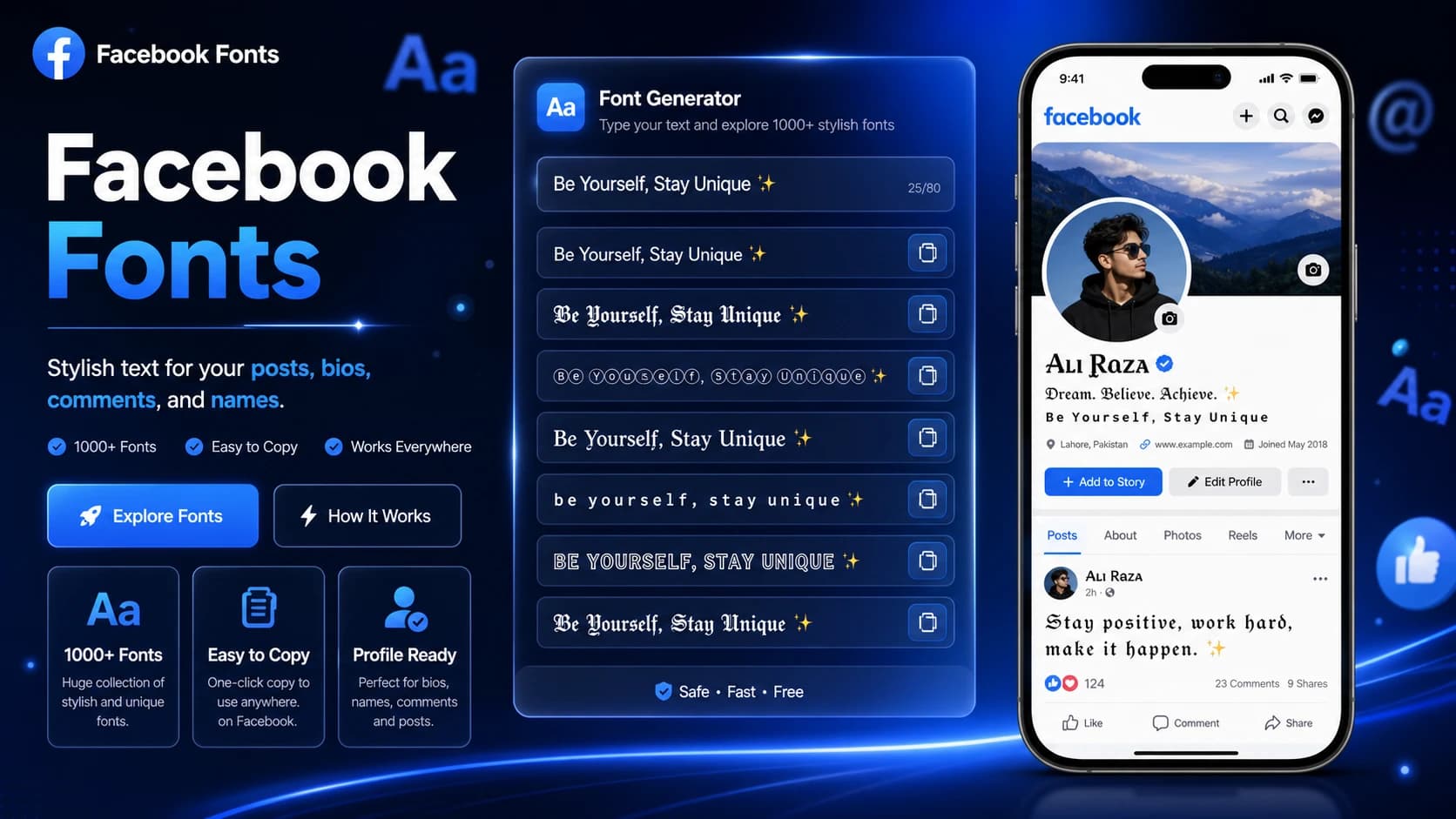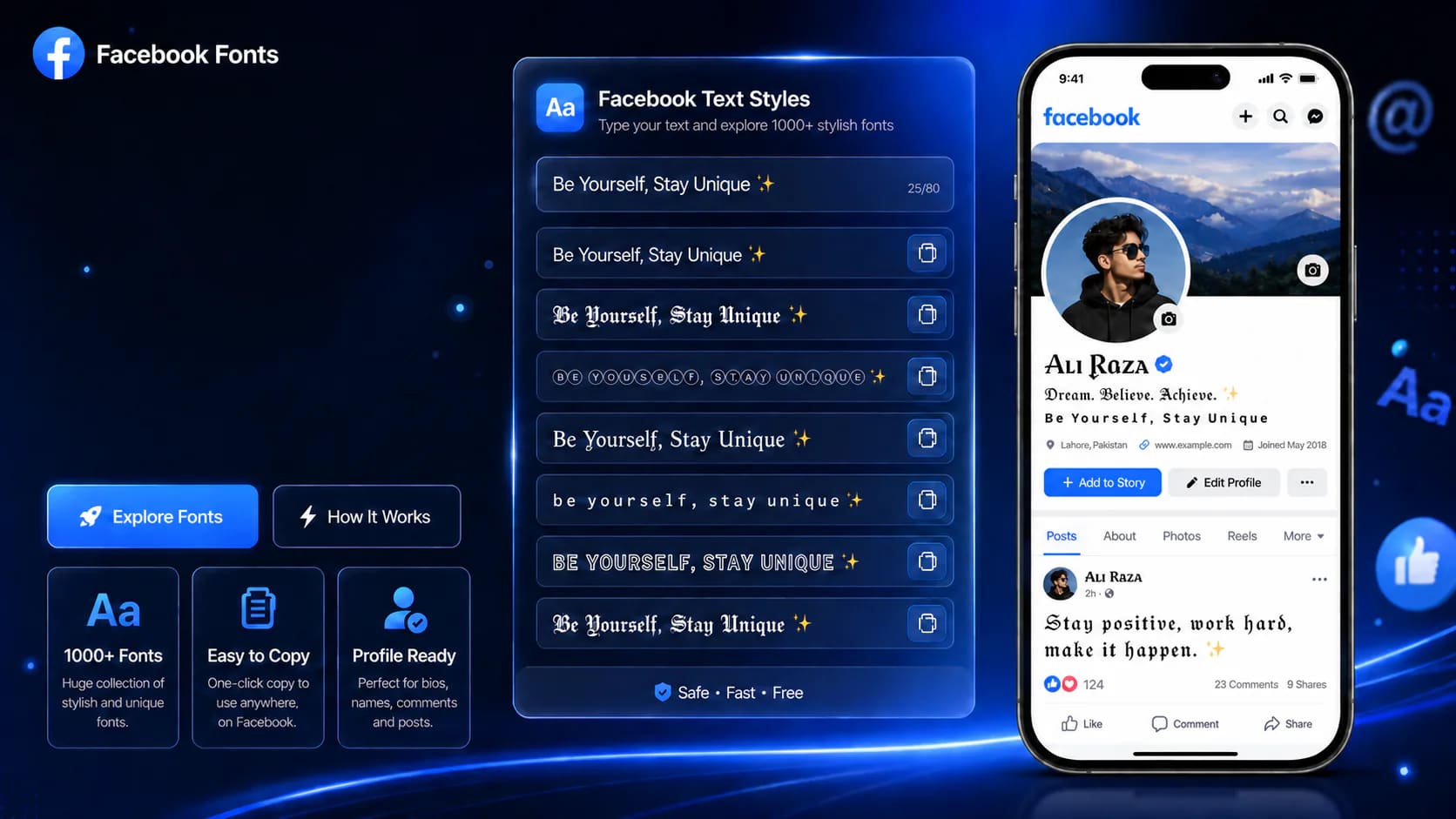
Facebook applies separate rules to personal profile names. Check Facebookโs official name guidance before replacing your name with decorative characters.
How to copy and paste Facebook fonts
Use stronger Unicode styling for Facebook intros, post hooks, profile names, and page headlines while keeping the result readable.
Type
Write a post title, intro line, or profile text.
Preview
Browse styles tuned for Facebook posts, names, and visible headings.
Copy
Keep the style that gives your text more weight without losing clarity.
Paste
Use it in posts, pages, names, intros, or headline areas.
Keep essential information in plain text. Unicode styling can affect screen-reader pronunciation, device compatibility and Facebook name validation.
What this page is optimized for
Facebook Fonts favors clearer styles suited to posts, names, and page text where readability still matters.
How stable styles work
The page keeps a stable set of styles in the same order, so editing the text updates the result without reshuffling the list.
When to use a framed style
Bracket and quote styles work well for headlines and callouts, while cleaner bold styles work better for names and intros.
How to get better results on Facebook Fonts
This free Facebook font generator converts ordinary letters into copy-and-paste Unicode text. Search styles or save favorites, then copy a result into Facebook.
What are Facebook fonts?
The results are Unicode characters that resemble different fonts. They copy as text, so you do not need to install a typeface or upload an image. A bold letter such as ๐ is a different character from ordinary A; copying the style preserves those characters in a Facebook text field.
How to make bold text in a Facebook post
Enter your post heading above and choose Bold or Sans Bold. Copy the result, open the Facebook post composer, and paste it on the first line. Write the remaining details in ordinary text. This is useful for a short announcement heading or a question, and it keeps longer posts easier to read.
Cursive fonts for Facebook bios and comments
Try Script or Bold Script for a short bio accent, greeting or signature. Paste the result into your bio or a comment, then preview it on your phone before saving. Avoid using decorative letters for contact details, links or other information people need to read accurately.
Choosing a readable Facebook font style
Start with Bold, Italic or Sans Bold for emphasis. Script gives a handwritten appearance; Double Struck creates outlined letters; Small Caps gives a compact look. The generator lists clean styles first. Use the style search to find a specific look, or save a favorite with the heart button for later visits in the same browser.
Facebook names have different rules
Facebook personal profile names must follow its name standards. Decorative characters, symbols and unusual capitalization may be rejected. A style that works in a post or bio is not necessarily accepted in a personal name. Use your everyday name for that field and add styled text to a bio or post instead.
Why some Facebook fonts look like boxes
A box or missing symbol usually means the device or app lacks a glyph for that Unicode character. Try a simpler style and compare the result on desktop and mobile. The generator styles supported characters rather than translating your text, so accented letters, numbers and non-Latin scripts can behave differently between styles.
Accessibility and searchable text
Screen readers and text search may treat decorative Unicode letters differently from ordinary letters. Keep names, prices, dates, contact details and the main message in plain text. Style a short accent only, and check how the final post reads before publishing.
Common questions about Facebook Fonts
How do I change the font in a Facebook post?
Type your words in the generator, choose a style, copy the result and paste it into the Facebook post composer. The output is Unicode text, so no font installation is needed.
Can I make bold and italic Facebook text?
Yes. Use Bold, Sans Bold or Italic for a short heading or phrase. Keep the rest of a longer post in plain text so it stays readable.
Can I use cursive fonts in a Facebook bio?
You can paste styled Unicode text into a bio or comment. Preview the result before saving because glyph support and appearance vary by device and app.
Can I use fancy letters in my Facebook profile name?
Facebook name standards may reject symbols, unusual capitalization or decorative characters. Use the name you use in everyday life for your personal profile; a post or bio is a better place to try styled text.
Why do some characters stay unchanged?
Unicode does not provide a styled equivalent for every character. Some styles convert supported Latin letters or digits and leave other characters unchanged; your text is not translated.
Headline
Clear and stronger for posts.
Try style: Bold
Framed
Adds a callout feel.
Try style: Bold Heavy Bracket
Bold post
More impact in feed text.
Try style: Sans Bold